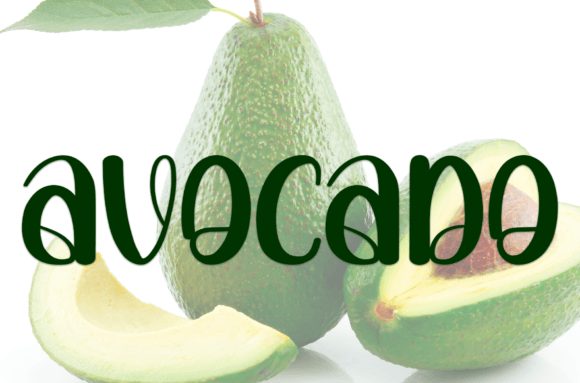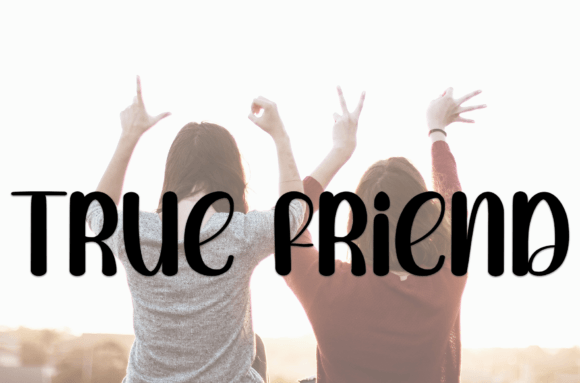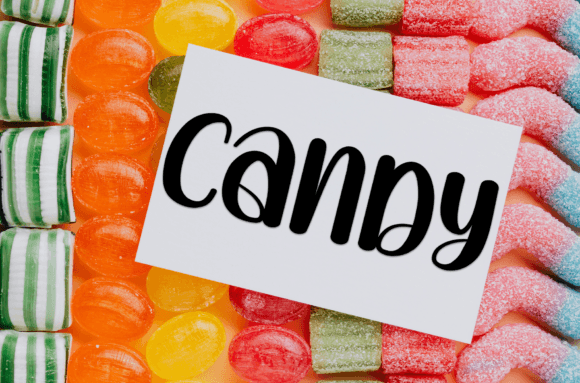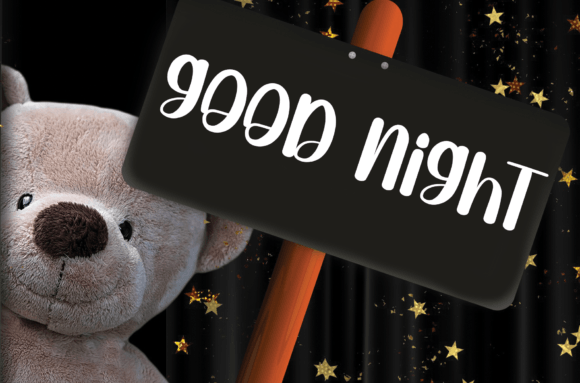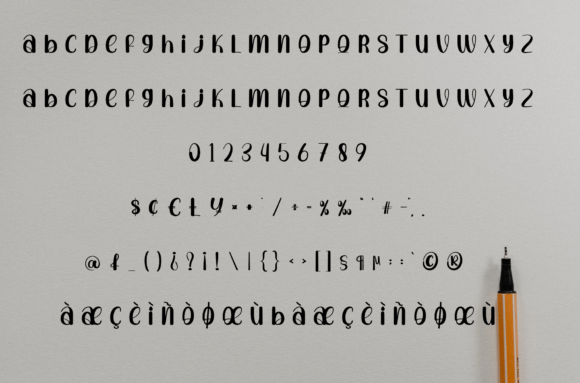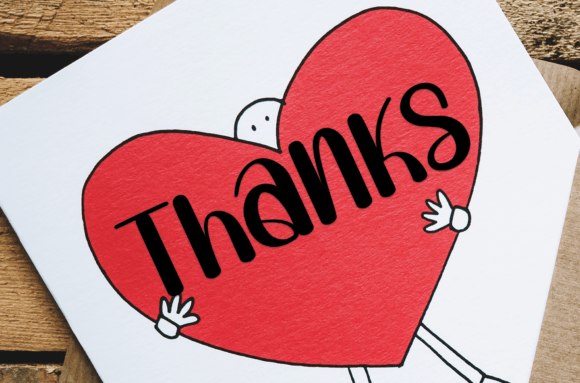
Introduction to Embrace Family Font
Embrace Family is a sweet and friendly handwritten font.
Cute and fun, this font is ideal for writing wedding invitations, cards, or any other design that might need a fun touch .